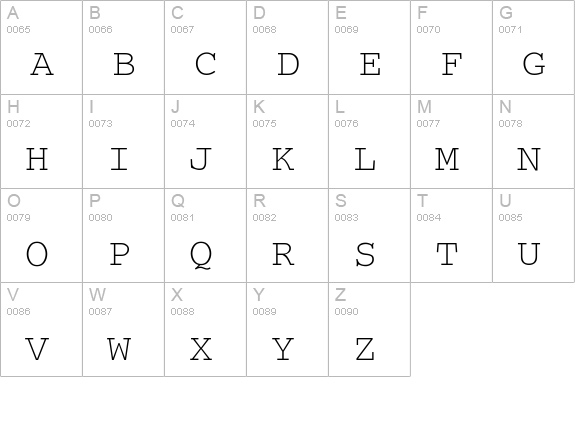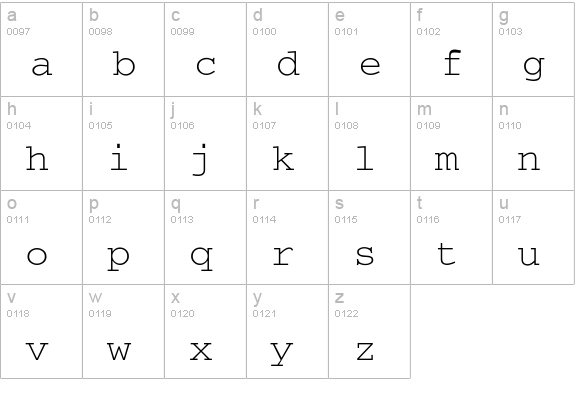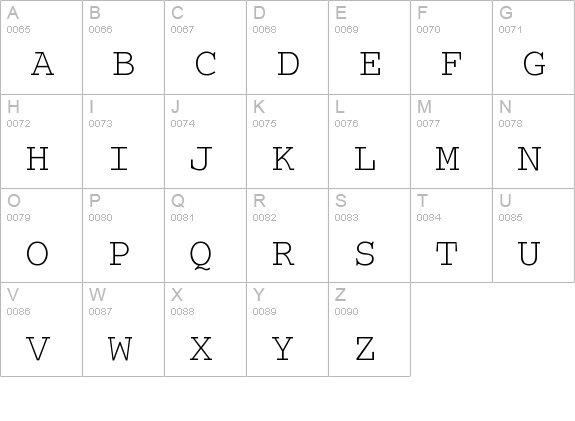
Courier-a Font Details
Courier is a timeless and classic font that exudes a sense of professionalism and reliability. With its clean lines and simple design, Courier is perfect for conveying important information in a clear and legible manner. This versatile font is widely used in various industries, from publishing to finance, thanks to its ability to maintain readability across different mediums. What makes Courier even more appealing is that it is available for free download at FontsMarket.com. This means that you can easily access this high-quality font without any cost, making it a valuable addition to your font collection. Whether you need to create official documents, design a website, or craft eye-catching marketing materials, Courier is a font that you can rely on to deliver exceptional results. Download Courier today and elevate your projects with this exceptional typeface.